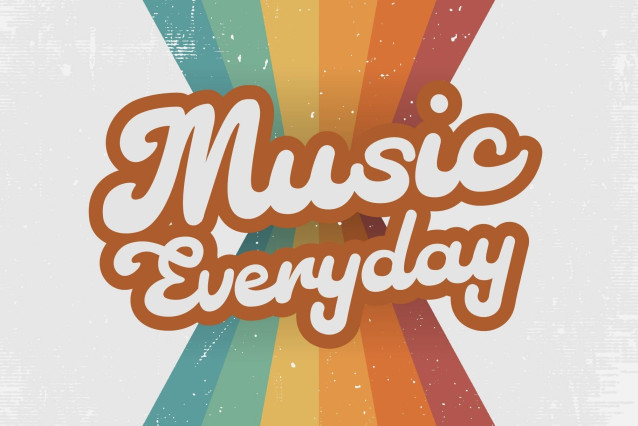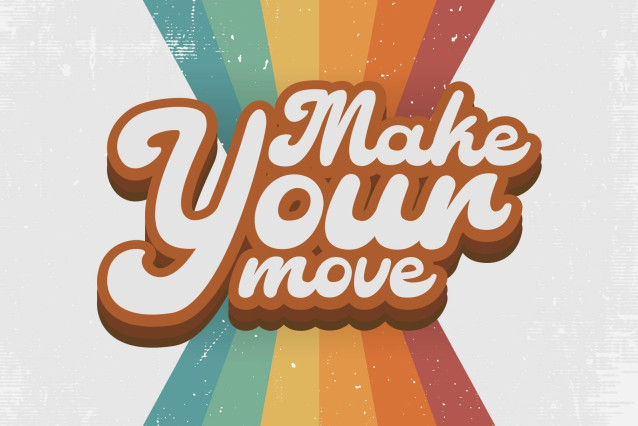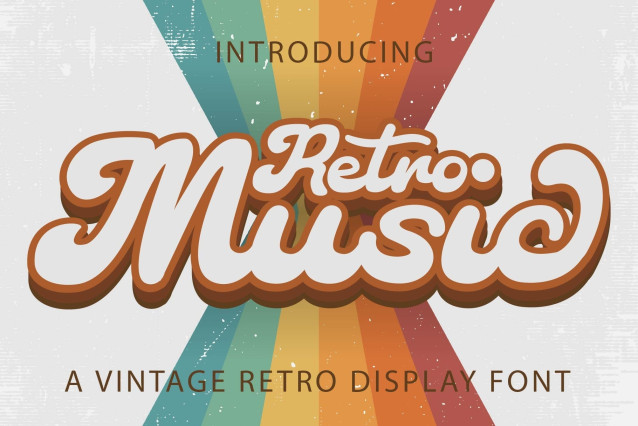
Retro Music Font
Retro Music is a cool, vintage-style display font. Use it to add that special retro touch to any design idea! It can be used for logos, branding, invitations, stationery, wedding designs, social media posts, and much more!
• Standard Character
• Stylistic Alternate
• Swash